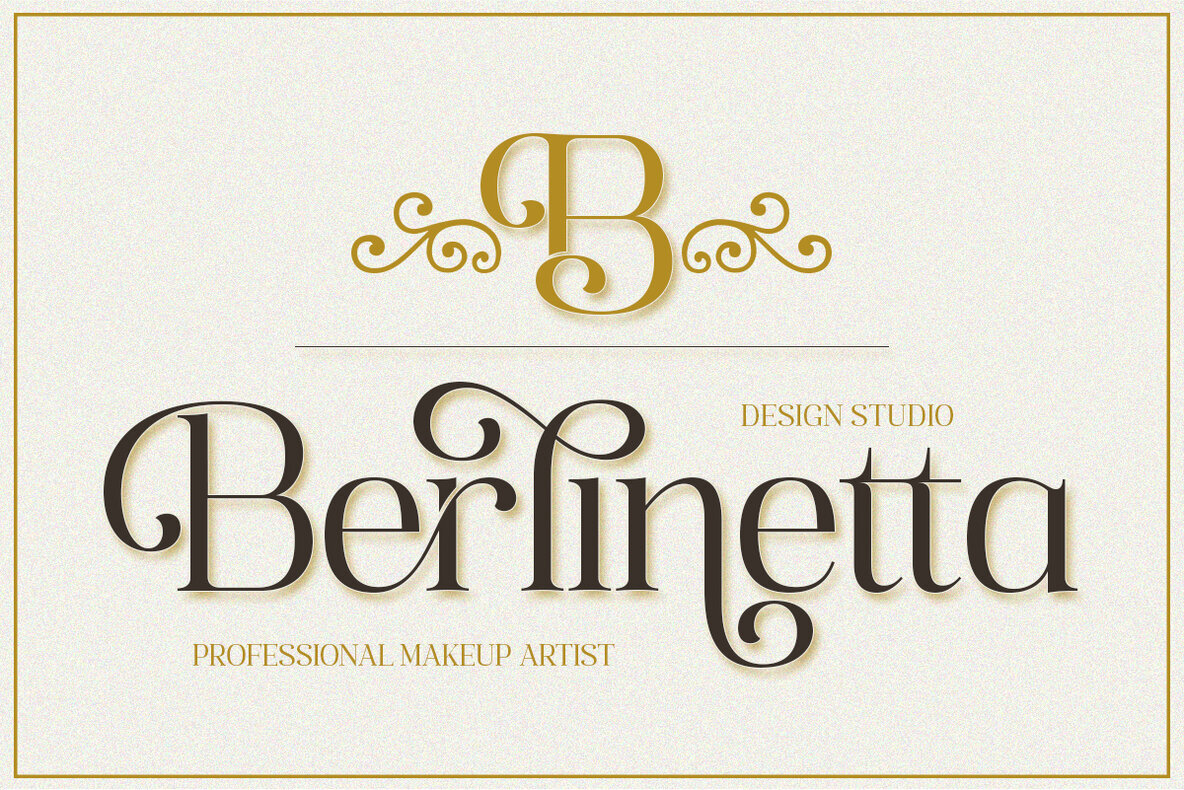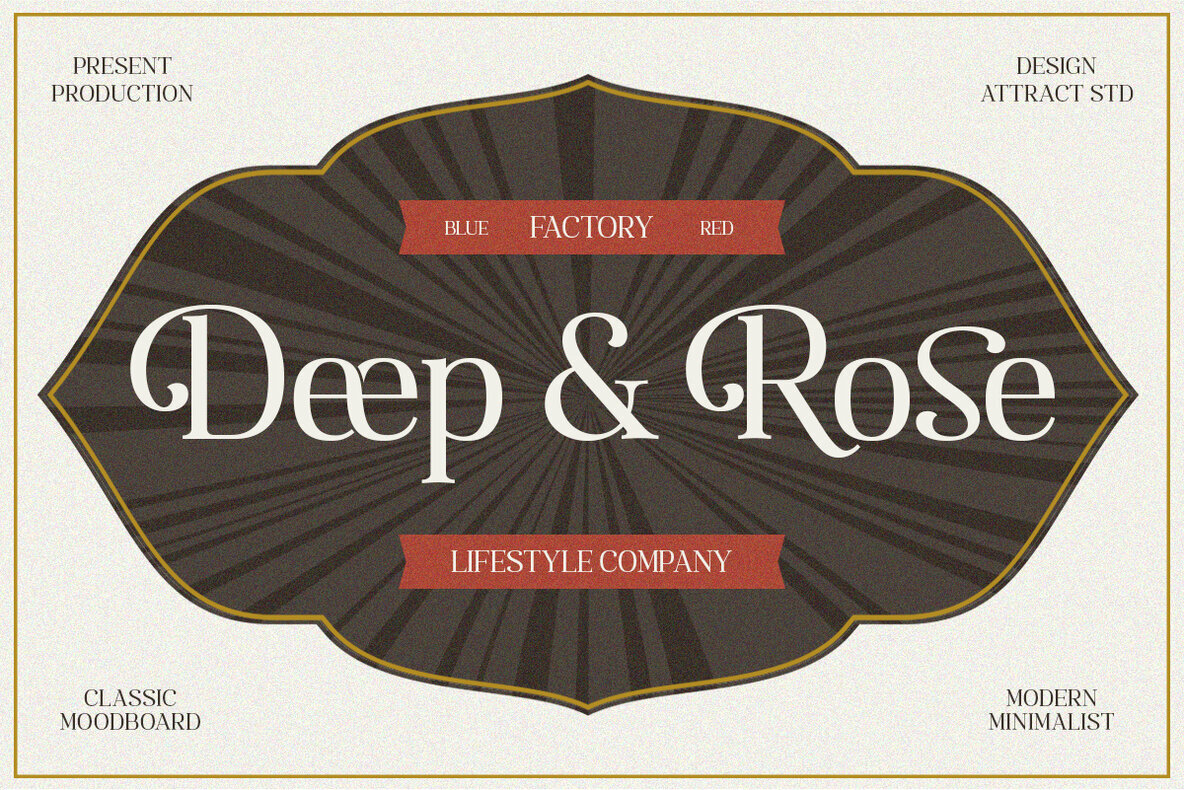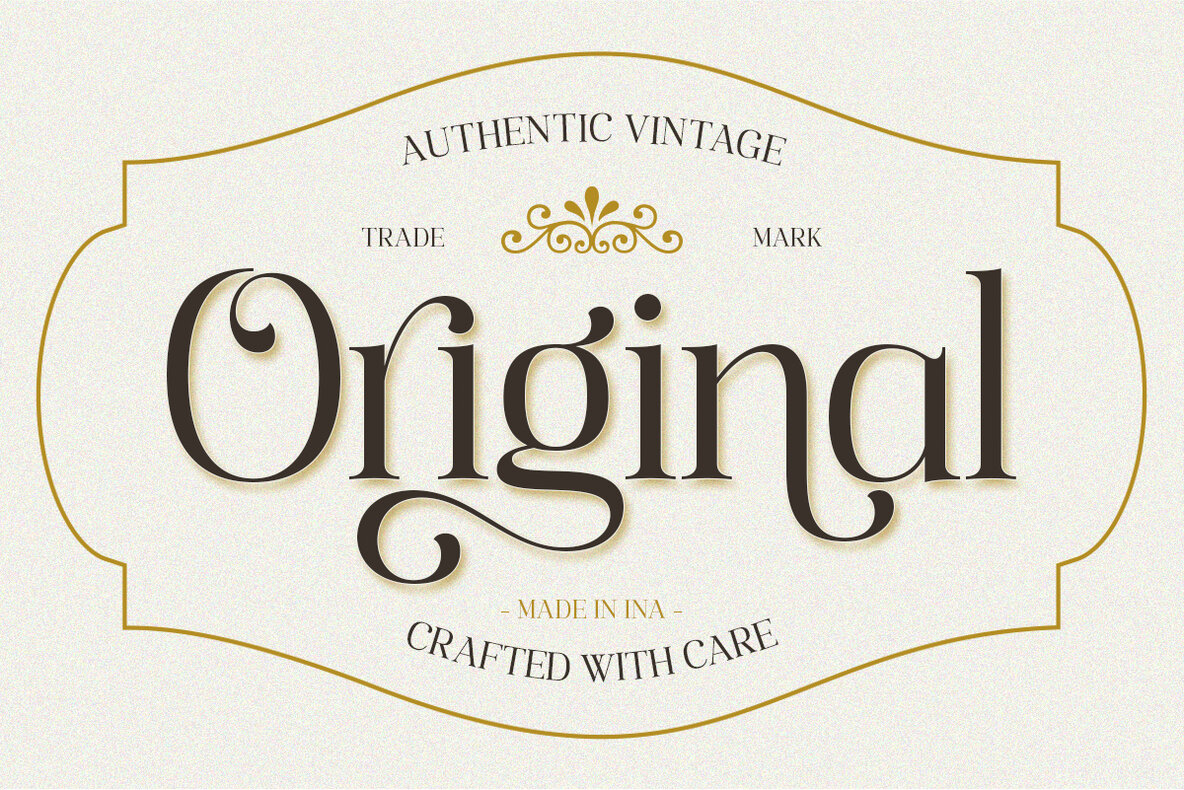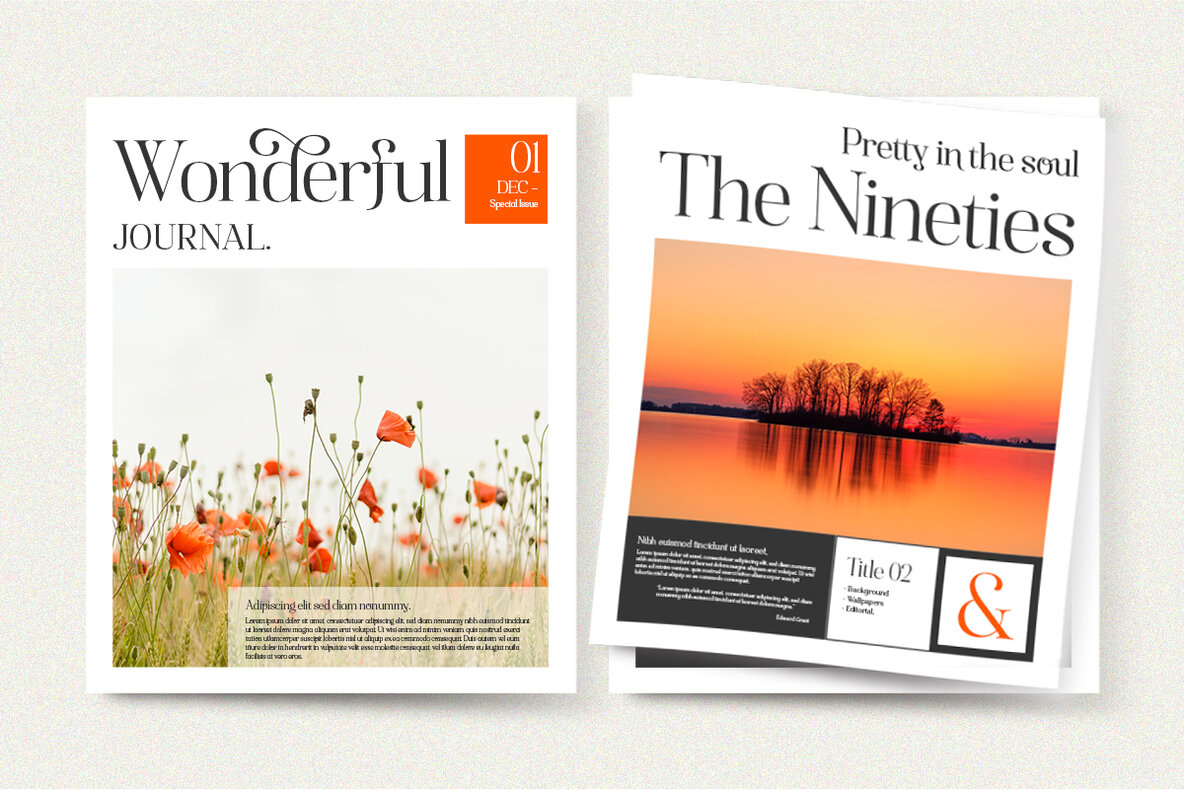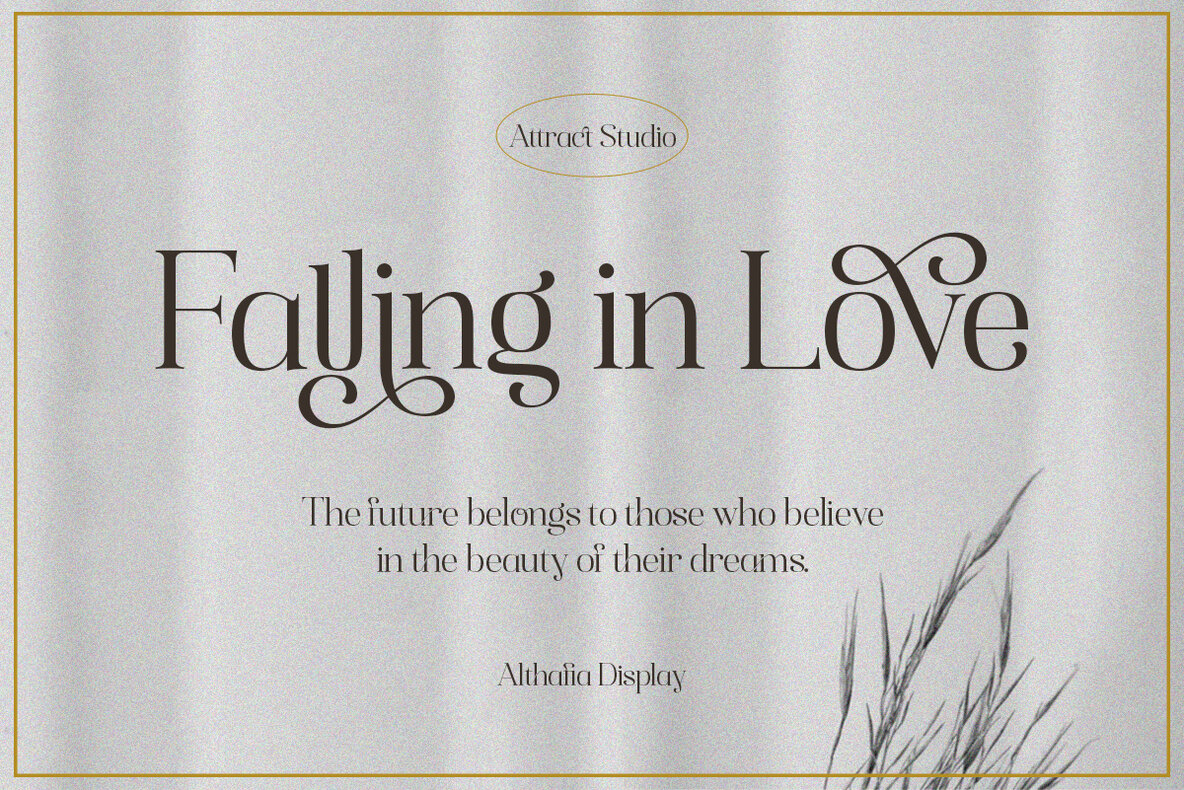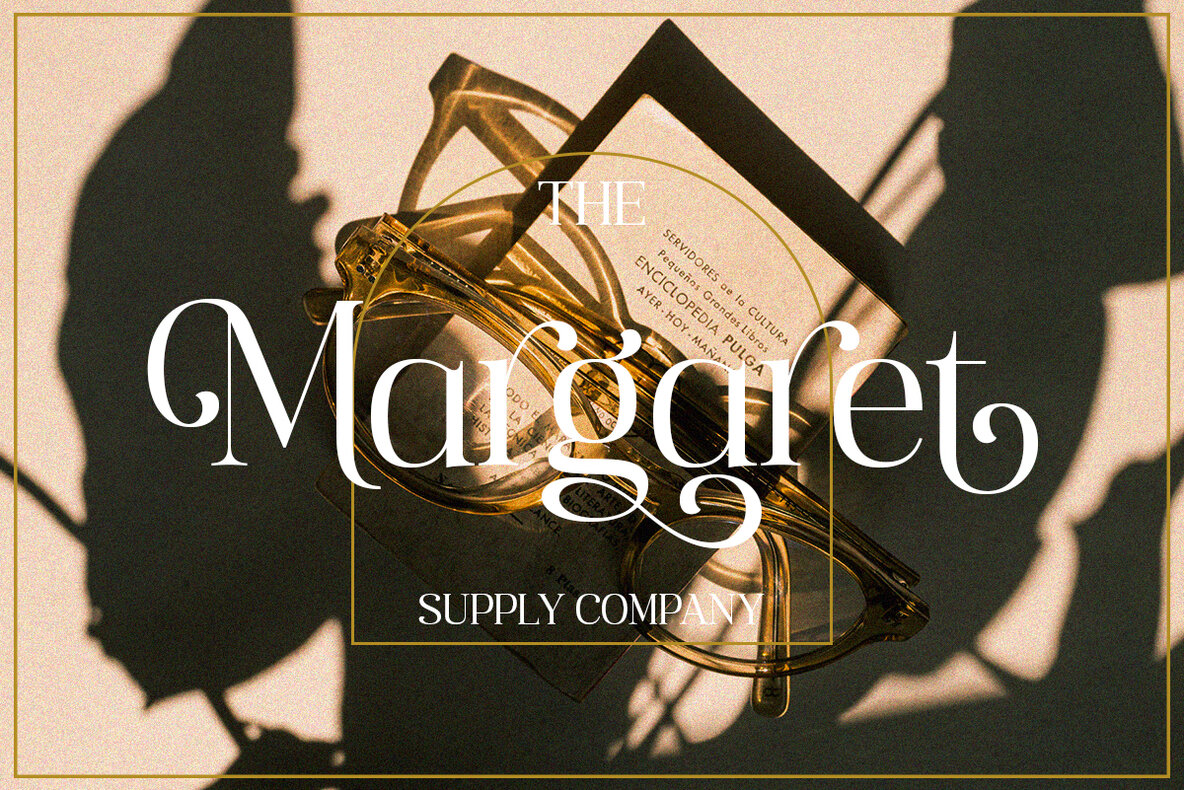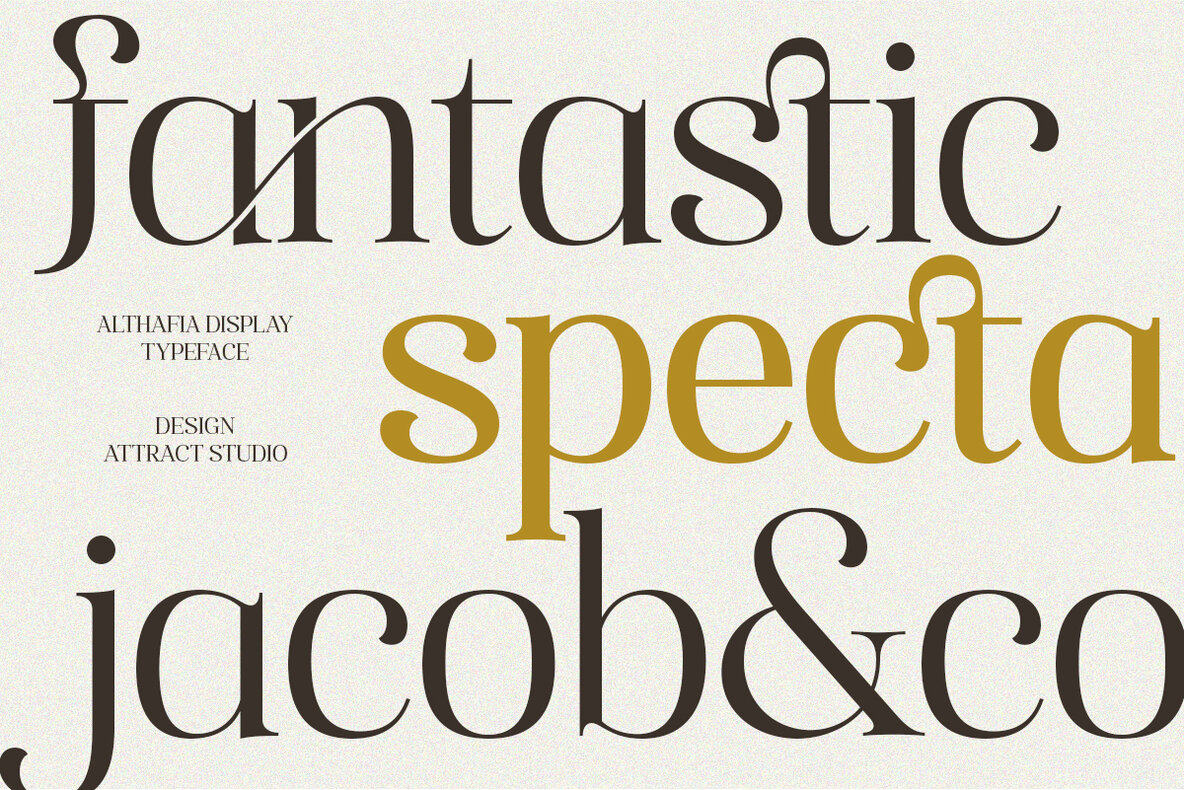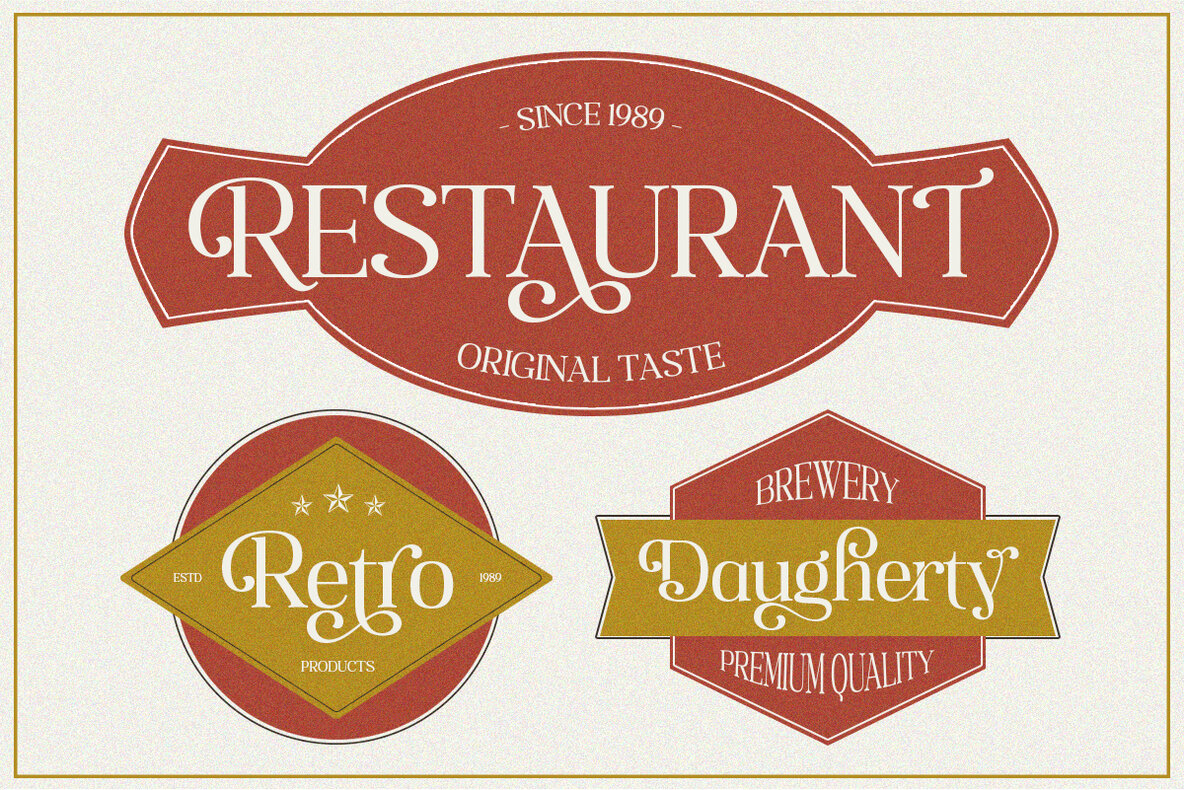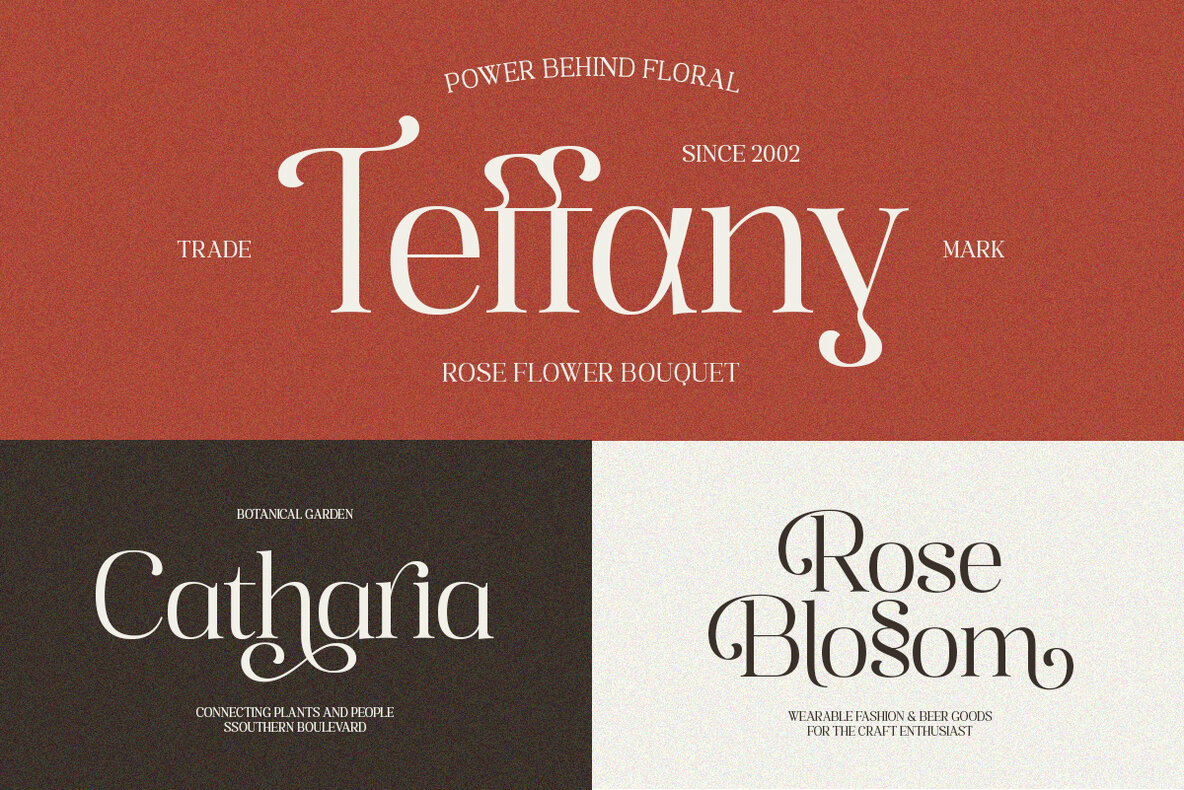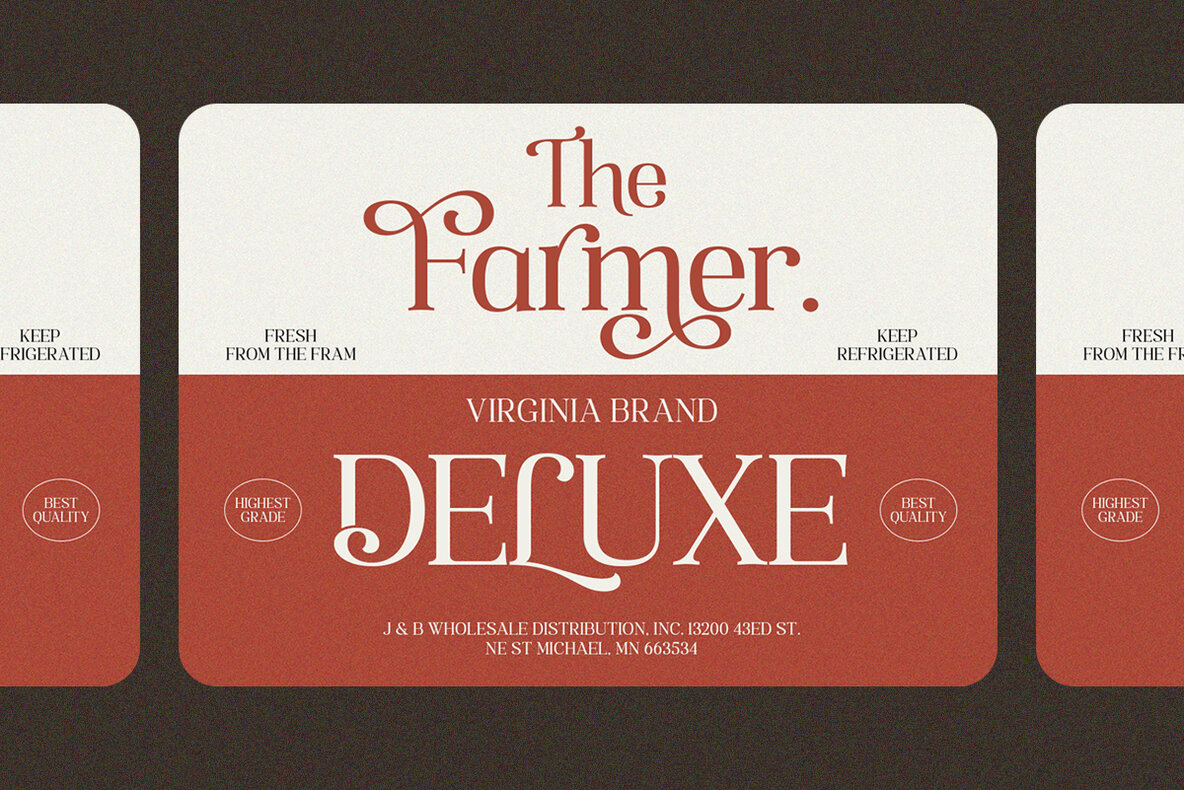
Althafia Display Font
Althafia Display merges the elegance of old-style serifs with the flair of contemporary fonts. This fancy display serif is designed to captivate with its unique character, making it ideal for labels, signage, titles, logos, and other creative projects.Althafia Display: A Distinctive Serif for Creative Projects